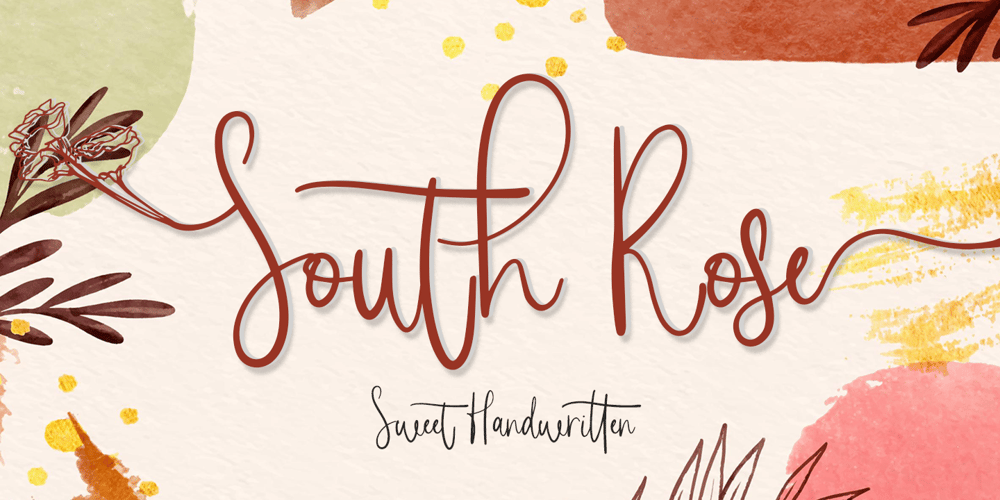
South Rose Font Family was designed by Laire Banyu and published by The Ocean Studio. South Rose contains 1 styles and family package options. South Rose is modern sweet CalligraphySouth Rose is such the perfect typeface for any kind of your project, such as advertisements, branding, graphic design, quotes, wedding design, logo for online or offline business, photography, and others. Make your business more beautiful!Note : this helps you to use all of our font functionsTo get Special Characters like Our Preview Image· Adobe Photoshop go to Window – glyphs· Adobe Illustrator go to Type – glyphs You can get special characters by access Character Map for Windows user, and Font Book for MAC user. Download tutorial below : How to Access special characters, You can Download the link for Support youhttp://www.mediafire.com/file/o3sml68hxp6h6yd/Access_Spesial_Characters.pdf/fileThis is information and tutorial how to use ligatures in Adobe Illustrator, Adobe Photoshop, Microsoft Word (Windows and Mac). And Enable alternates characters in other apps. Download the guide here :http://www.mediafire.com/file/edm9sjjwx9g1vi2/How_to_Active_Ligature.pdf/fileif you get a trouble on our font kerning :http://www.mediafire.com/file/9e0q5sjzx97e06m/how_to_slove_trouble_kerning.pdf/file Includes· Beginning and Ending Characters· Ligatures· Numbers + punctuation· International Languange